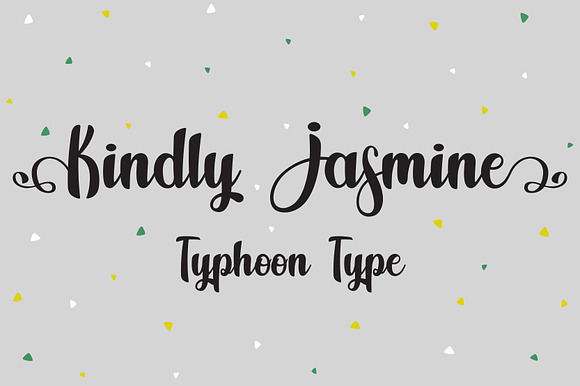
Kindly Jasmine font
Kindly Jasmine This font perfect for logos, name tag, advertising, product packaging, clothing, social media & greeting cards.
Why Kindly Jasmine font is worth a look
Kindly Jasmine font by TyphoonStudio fits naturally into Branding, posters, packaging, typography.